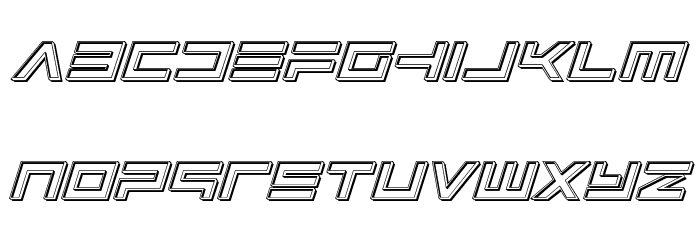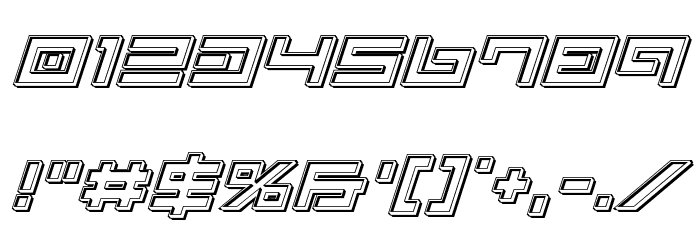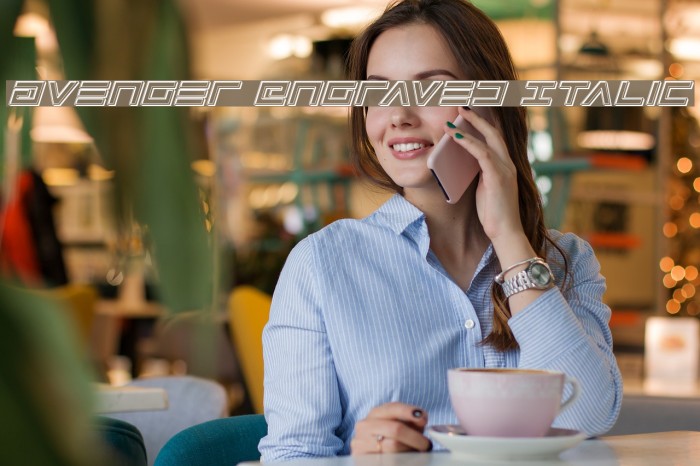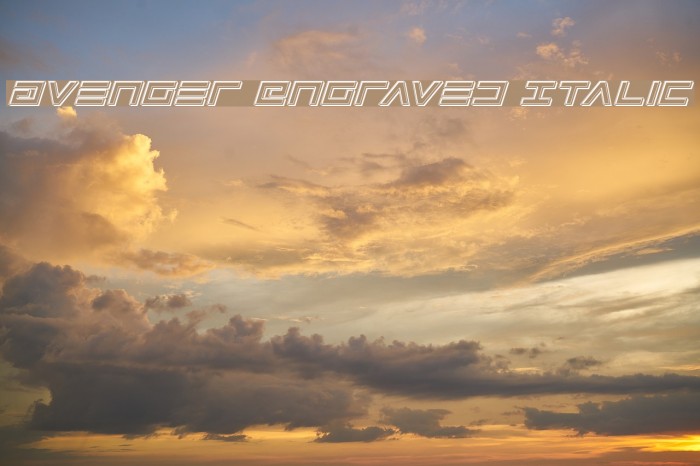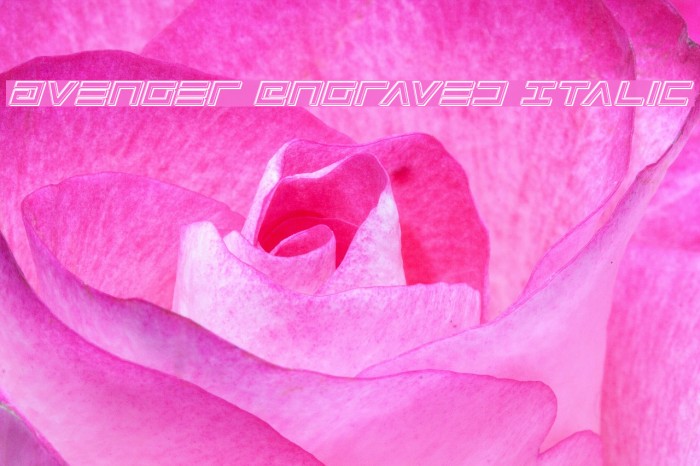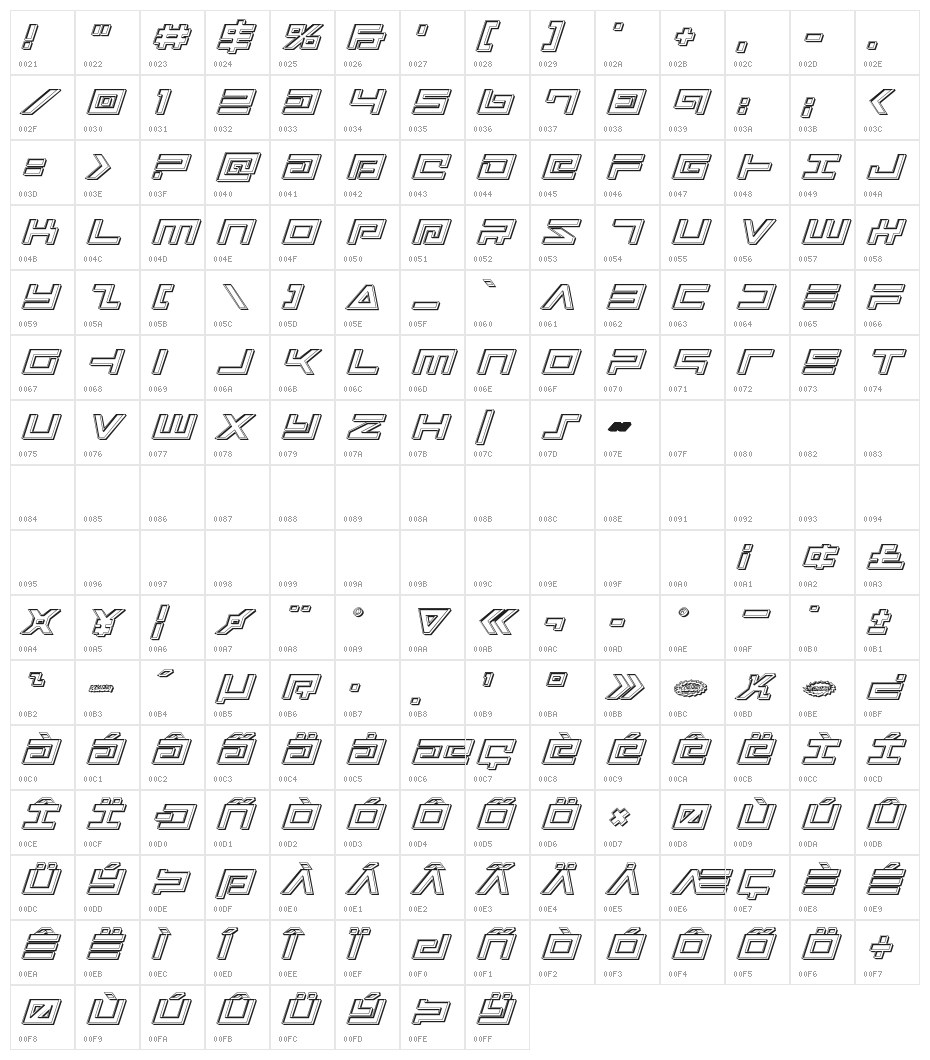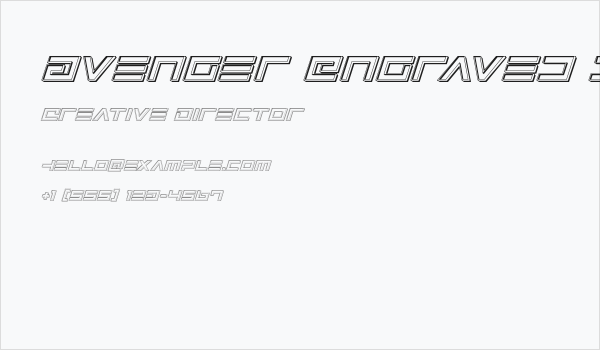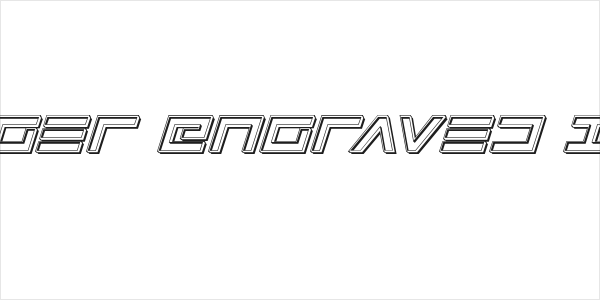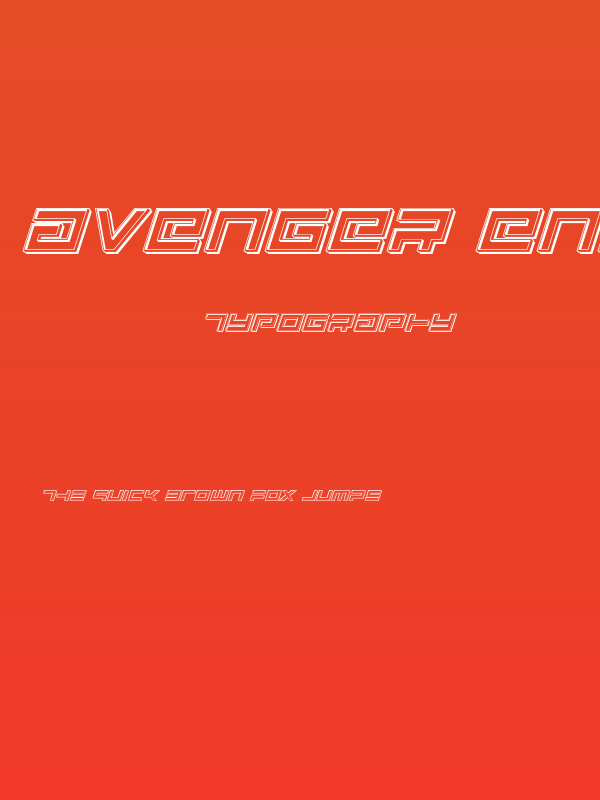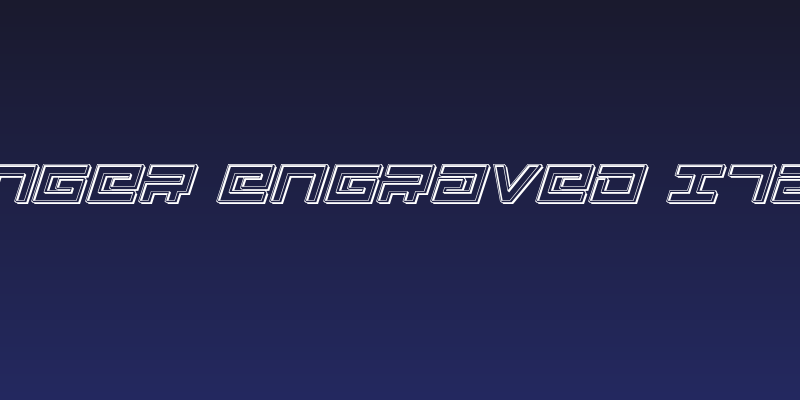
Avenger Engraved Italic Font
This font features a bold, futuristic design with an engraved, three-dimensional appearance. The italicized style adds a dynamic and forward-leaning aspect, enhancing its modern appeal. Each character is outlined with a double line, creating a sense of depth and movement. The geometric shapes and sharp angles contribute to its high-tech aesthetic, making it suitable for projects that require a strong, impactful visual presence. The font maintains a consistent weight and width across all characters, ensuring readability and uniformity.
A bold, futuristic, engraved italic font with a three-dimensional appearance.
- Proposed Projects: Ideal for sci-fi themed designs, technology branding, video game titles, and movie posters.